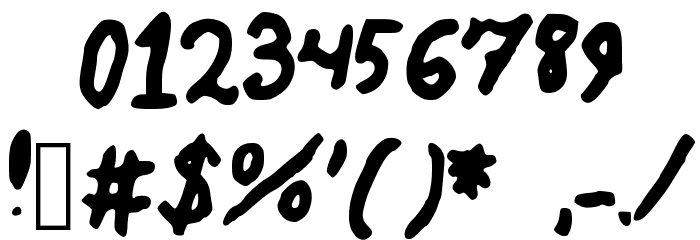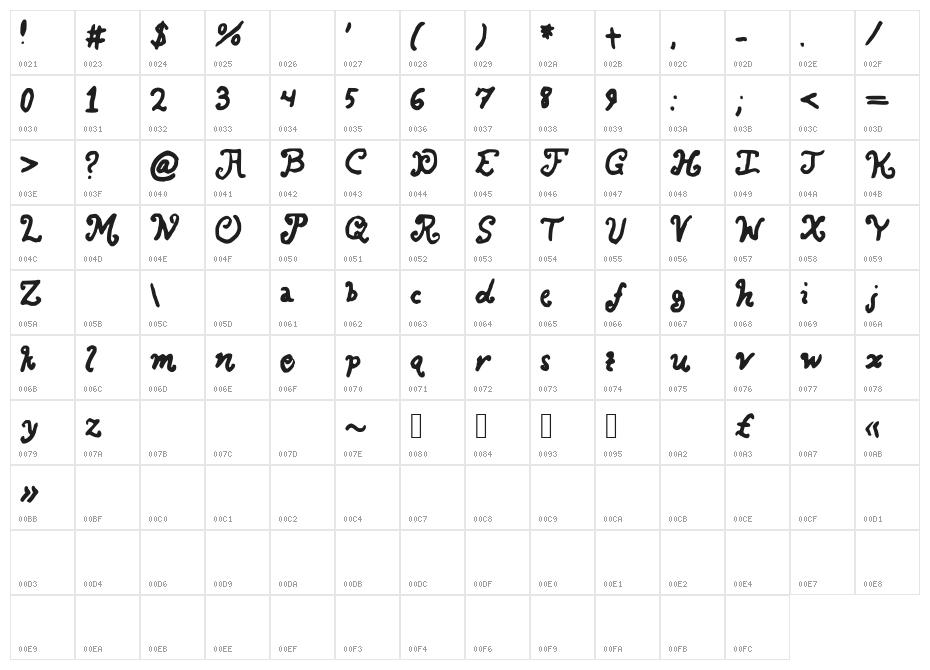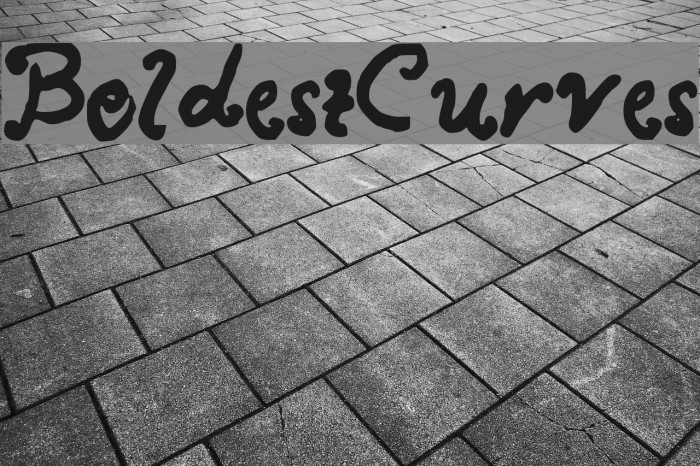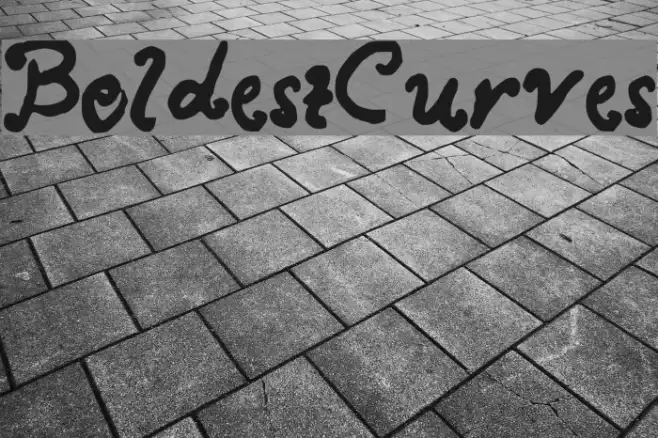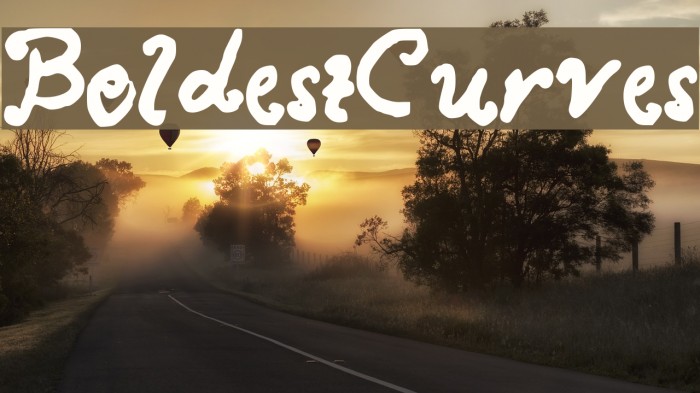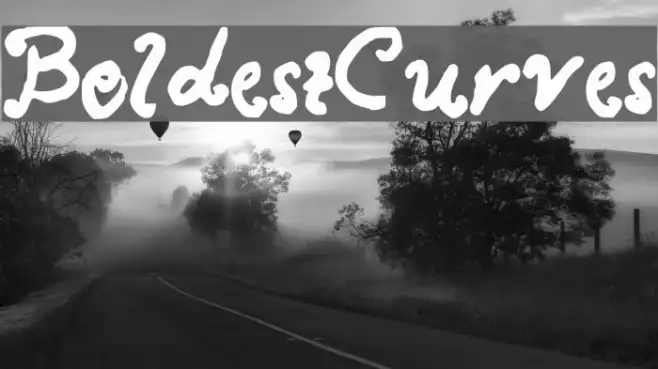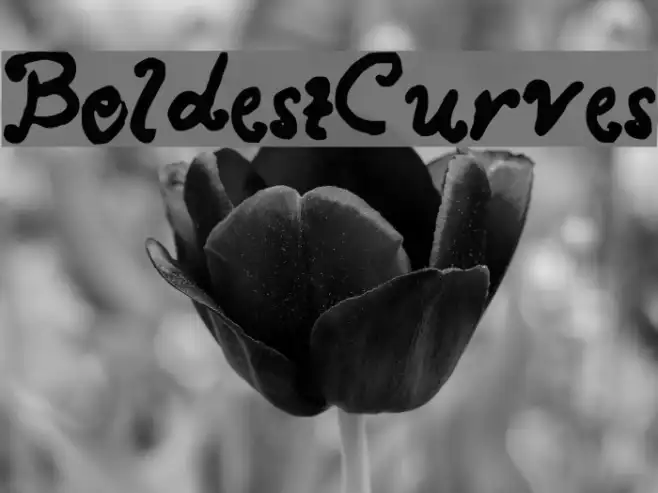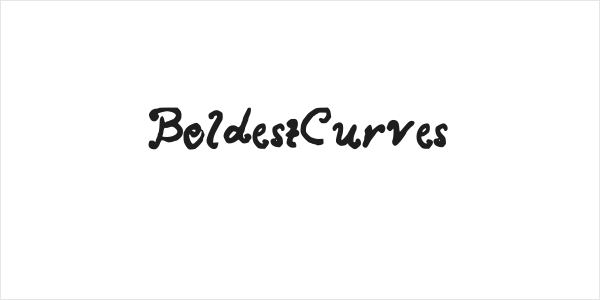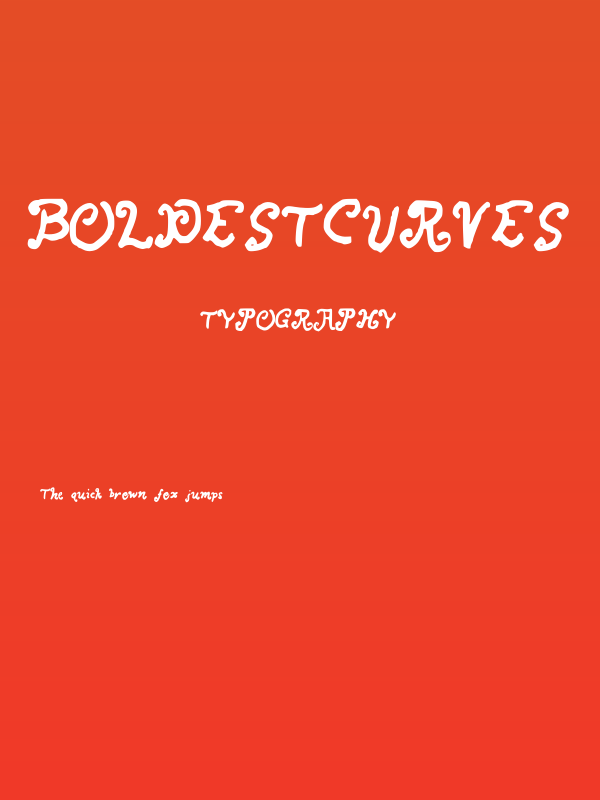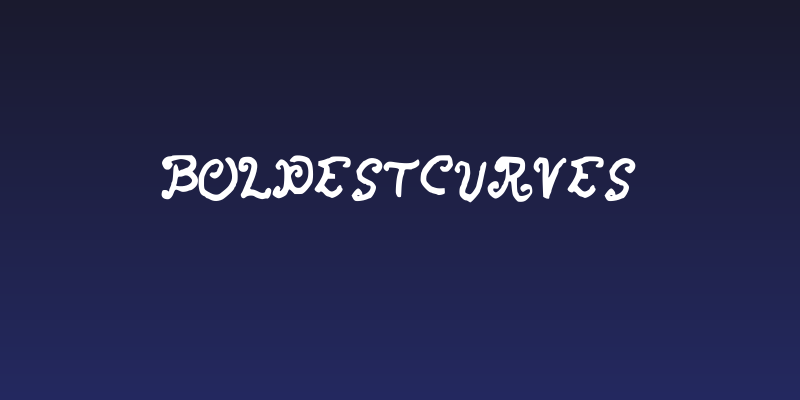
BoldestCurves Font
BoldestCurves Description
This font features a bold and playful design with exaggerated curves and a handwritten style. The characters are thick and rounded, giving them a strong presence on the page. The uppercase and lowercase letters maintain a consistent flow, while the numbers and special characters complement the overall aesthetic. The font's whimsical nature makes it stand out, with each letter appearing as if it has been drawn with a thick marker. The strokes are consistent in width, providing a uniform look across all characters.
| Overall Style | Playful, Decorative |
| Proposed Projects | Ideal for children's book covers, playful branding, greeting cards, and creative posters. |